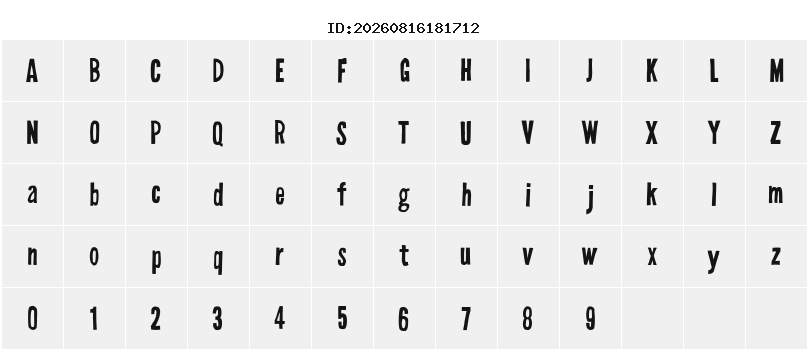
• Font Name: Spidola
• Designer: Chepi Dev
• Description: Spidola is a handwritten font designed by Chepi in 2013.
About Spidola.ttf
Spidola.ttf is a modern, elegant sans-serif font designed for ultimate readability and visual harmony. Perfect for branding, headlines, web design, and print materials.